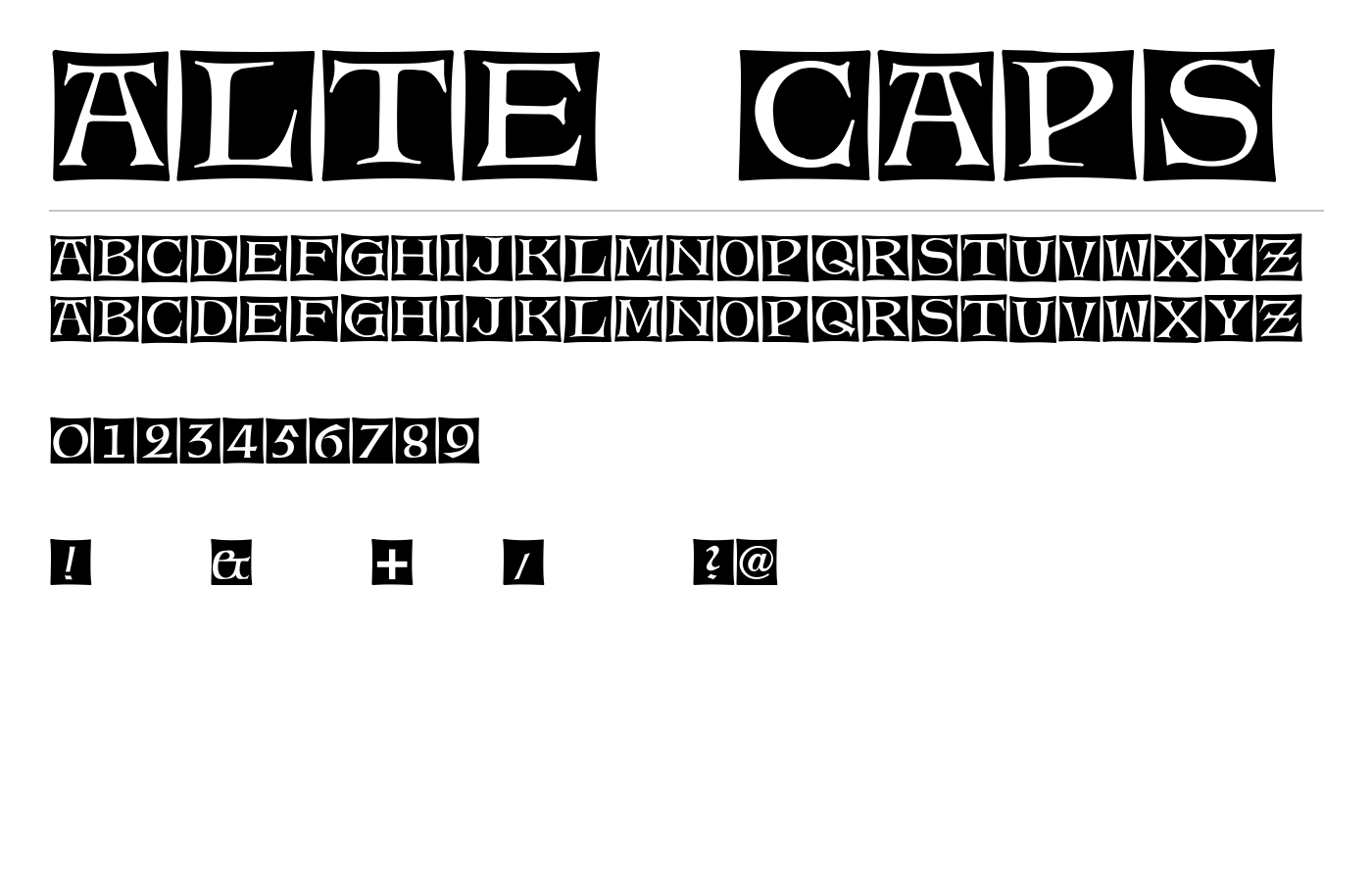
Alte Caps is a playful and bold serif display font characterized by irregular, wavy squares framing each letter and number, giving it a quirky and artistic vibe. Its high contrast strokes and distinctive letterforms make it ideal for eye-catching headlines, posters, and creative branding that demands a fun, vintage-inspired personality. This font works best in designs seeking a touch of whimsy and charm with a unique, hand-crafted feel.
Alte Caps Font
About Alte Caps Font